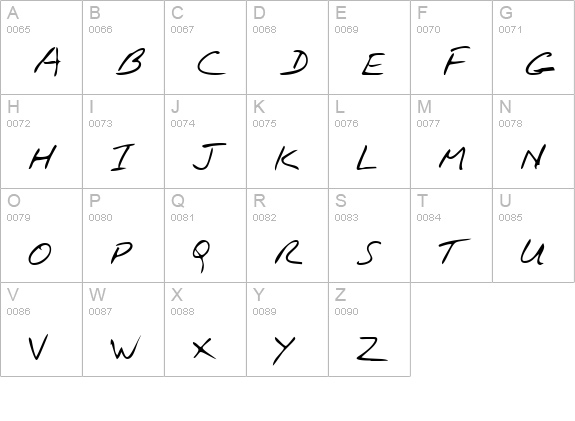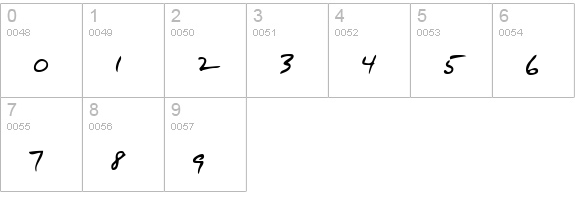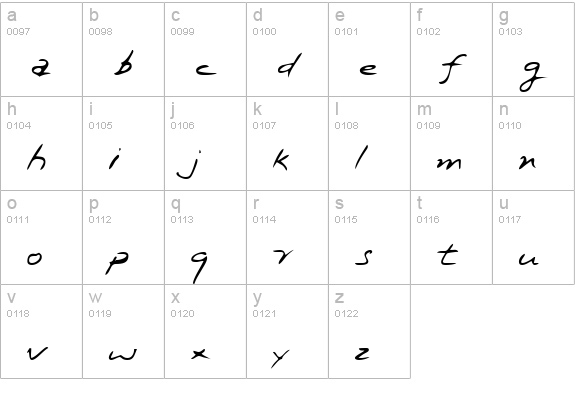
KennethsHand Regular Font Details
KennethsHand Regular is the standard, neutral variant in the KennethsHand typeface family \xE2\x80\x94 well suited to general body text, paragraphs, and standard typographic work.
KennethsHand Regular font is a charming and delightful typeface that adds a touch of whimsy and playfulness to any project. With its hand-drawn appearance, this font captures the essence of handwritten text, creating a warm and personal feel. Whether you're designing invitations, greeting cards, or crafting a unique logo, KennethsHand Regular font is the perfect choice to bring a sense of authenticity and originality to your work. Its slightly irregular letterforms and varying stroke weights give it a natural and organic look, making it ideal for projects that require a personal touch. One of the best things about KennethsHand Regular font is that it is freely available to download at FontsMarket.com. This means that you can easily access this wonderful font and use it in your designs without any cost. Its availability as a free download makes it an incredibly valuable resource for designers, students, and anyone who appreciates high-quality typography. With its versatility and charm, KennethsHand Regular font can be used in a wide range of design applications. From branding and packaging to social media graphics and website design, this font will add a unique and memorable element to your creations. Its legibility and readability also make it suitable for longer texts such as quotes, blog posts, or even book covers. In conclusion, KennethsHand Regular font is a must-have for anyone looking to add a touch of whimsy and personalization to their designs. Its freely available download at FontsMarket.com makes it accessible to all, ensuring that everyone can enjoy the beauty and charm of this delightful typeface. So go ahead, download KennethsHand Regular font today and let your creativity flow!